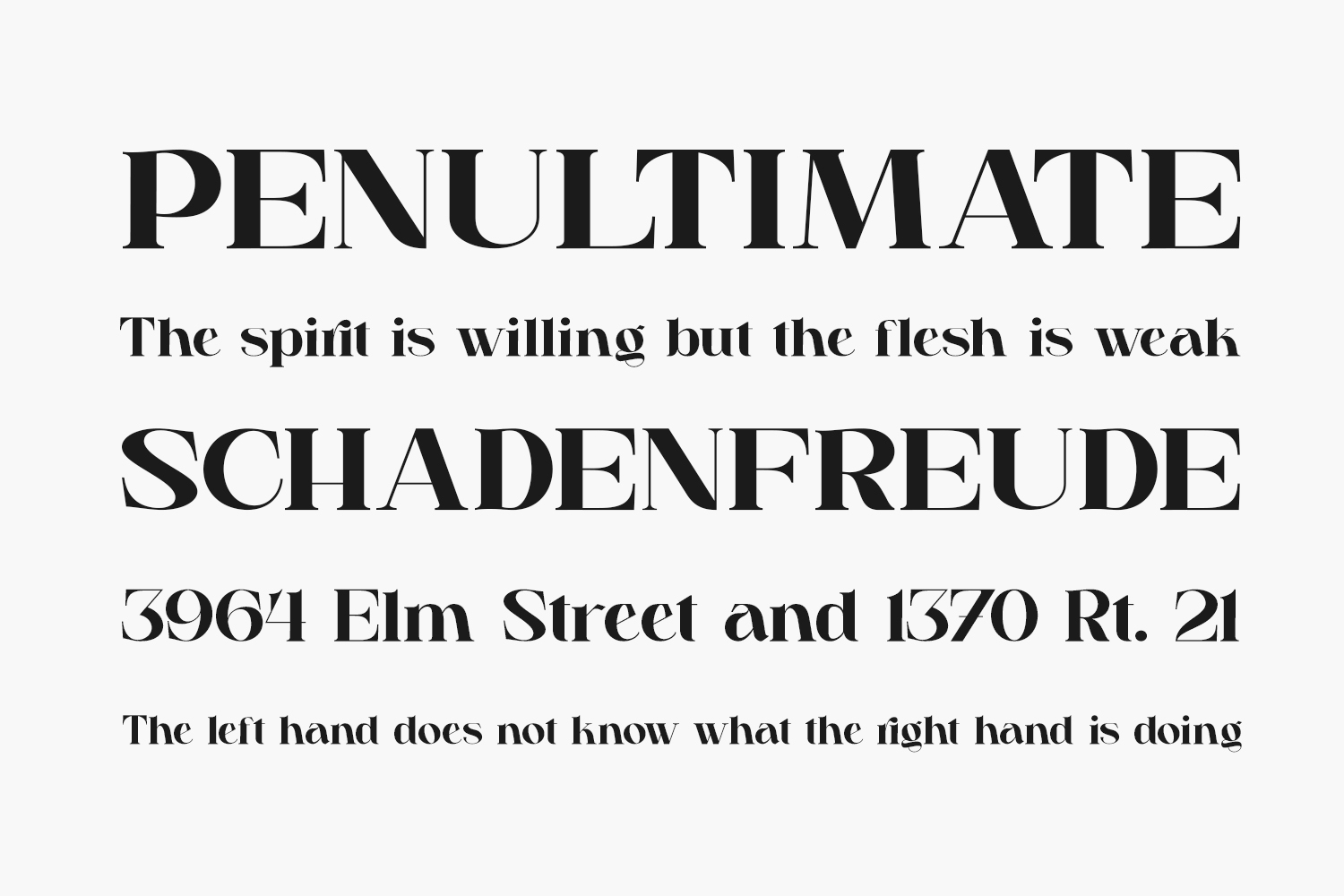
Zagora Free Font is a stylish, bold and modern serif font. This font is imposing and features uniquely shaped letters, and as a result, it will easily match a wide range of creations that require a distinct touch.
Designed by Riyadh Rahman